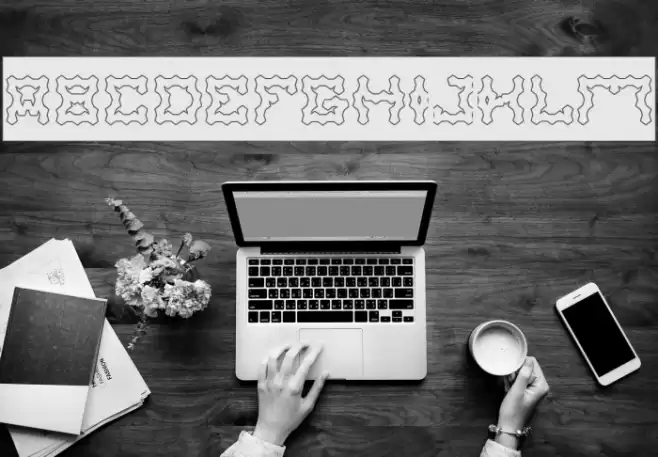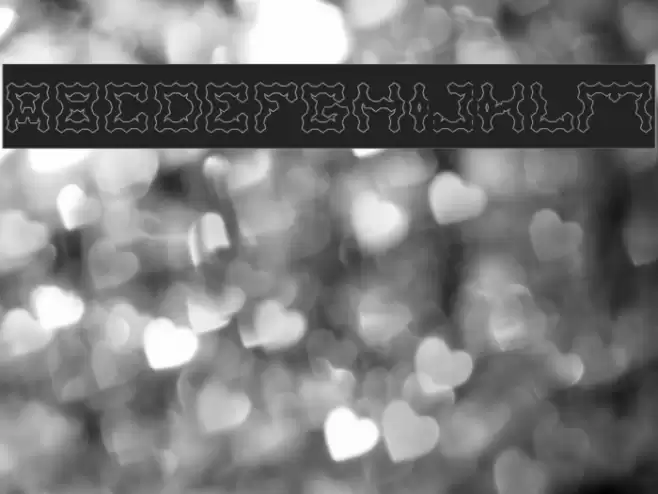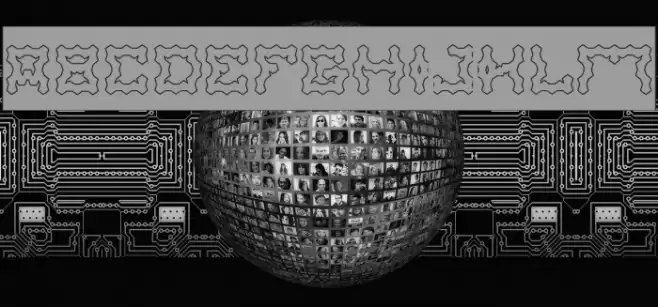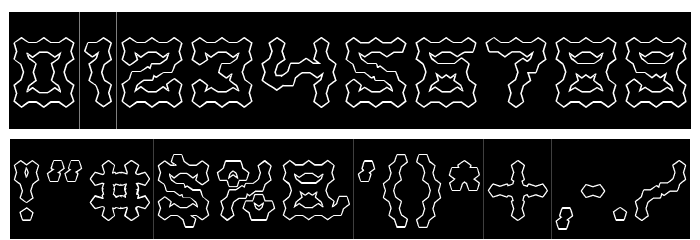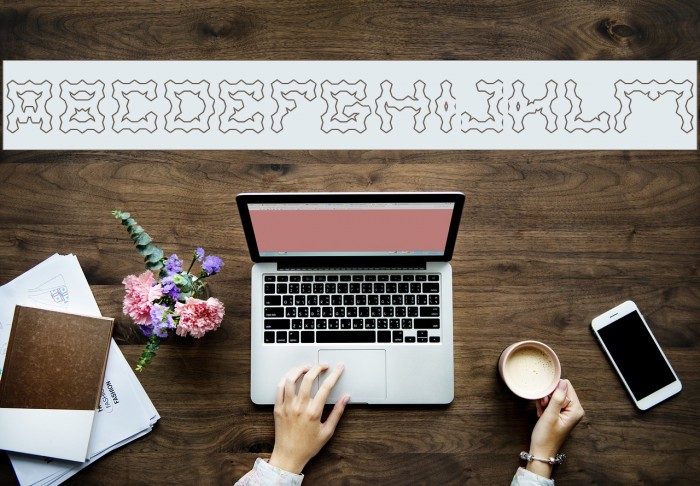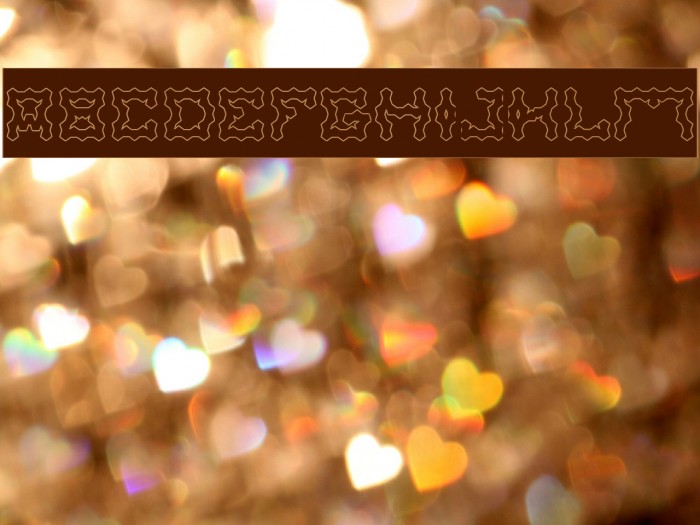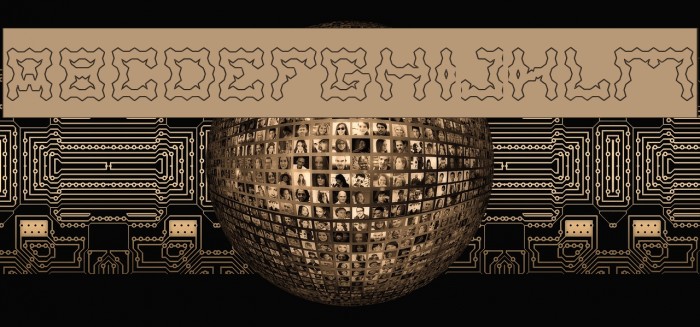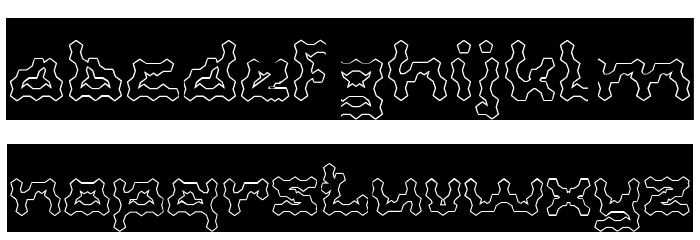
Shake It Off-Hollow-Inverse Font
Shake It Off-Hollow-Inverse Description
This font features a unique, wavy outline style that gives it a dynamic and playful appearance. Each character is defined by a hollow, irregular contour that creates a sense of movement and energy. The uppercase and lowercase letters maintain a consistent design, with the wavy lines forming the primary structure of each character. Numbers and special characters follow the same aesthetic, ensuring a cohesive look across all elements. The font's distinct style makes it stand out, ideal for creative and unconventional design projects.
A wavy, hollow outline font with a dynamic and playful style from Uncategorized fonts.
- Proposed Projects: Ideal for posters, album covers, party invitations, and any project requiring a bold, energetic typeface.